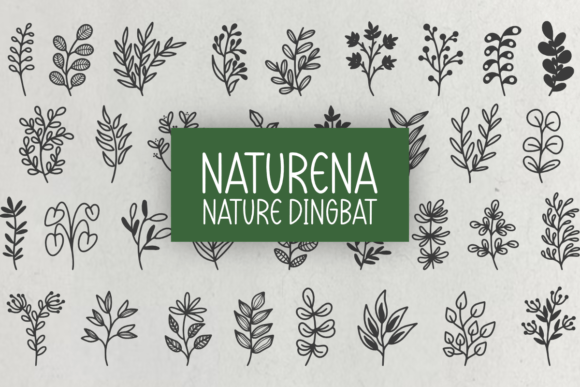
Venture into the realm of creativity with Naturena, a botanical sketch dingbat font that's anything but ordinary. Its delicate strokes and intricate details will transform your designs into breathtaking works of art.
Unleash your imagination and let Naturena's enchanting botanical motifs elevate your social media posts, covers, books, invitations, business cards, cards, printing, mugs, DIY projects, and more. Its versatility knows no bounds.
With Naturena, you'll find a treasure trove of creative possibilities. Adorn your social media feeds with captivating posts that bloom with life and personality. Design covers that entice readers and leave them yearning for more. Craft books that transport them to a world of wonder and beauty.
Elevate your invitations and business cards with a touch of botanical elegance that commands attention. Create cards that burst with charm and individuality. Make a lasting impression with Naturena's refined beauty.
Explore the endless possibilities of Naturena's artistry. Its versatility lends itself seamlessly to a myriad of design projects, from mugs that warm the soul with their intricate designs to DIY creations that showcase your unique style.
Naturena is more than just a font; it's an invitation to embark on a creative journey where inspiration flows effortlessly. Let its botanical sketches ignite your imagination and transform your designs into masterpieces that captivate and inspire.
Embrace Naturena and unlock a world of creativity that knows no limits. Let its beauty bloom in your designs and leave an everlasting impression on your audience.